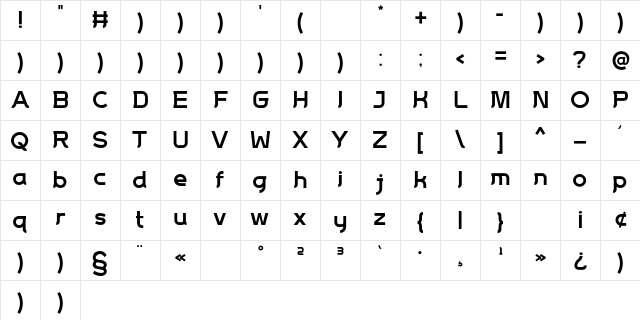
Mantrap Bold Free Font
Mantrap Bold
Foundry: rozi
Designer: rozak
Design Context for Mantrap
Mantrap is a composed and adaptable typeface that performs quietly and consistently across a wide range of design contexts. Its bold stroke weight gives it real presence on the page.